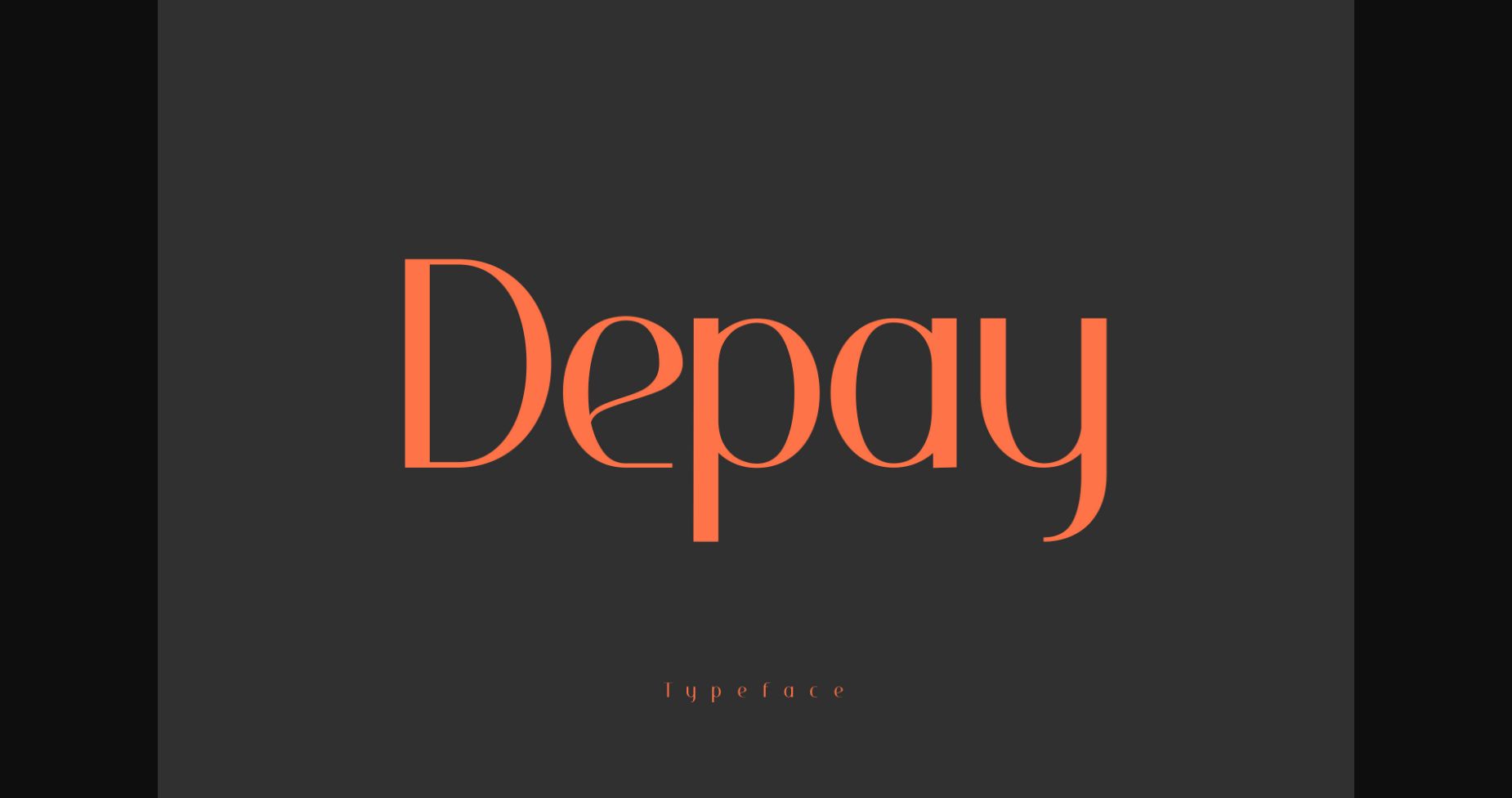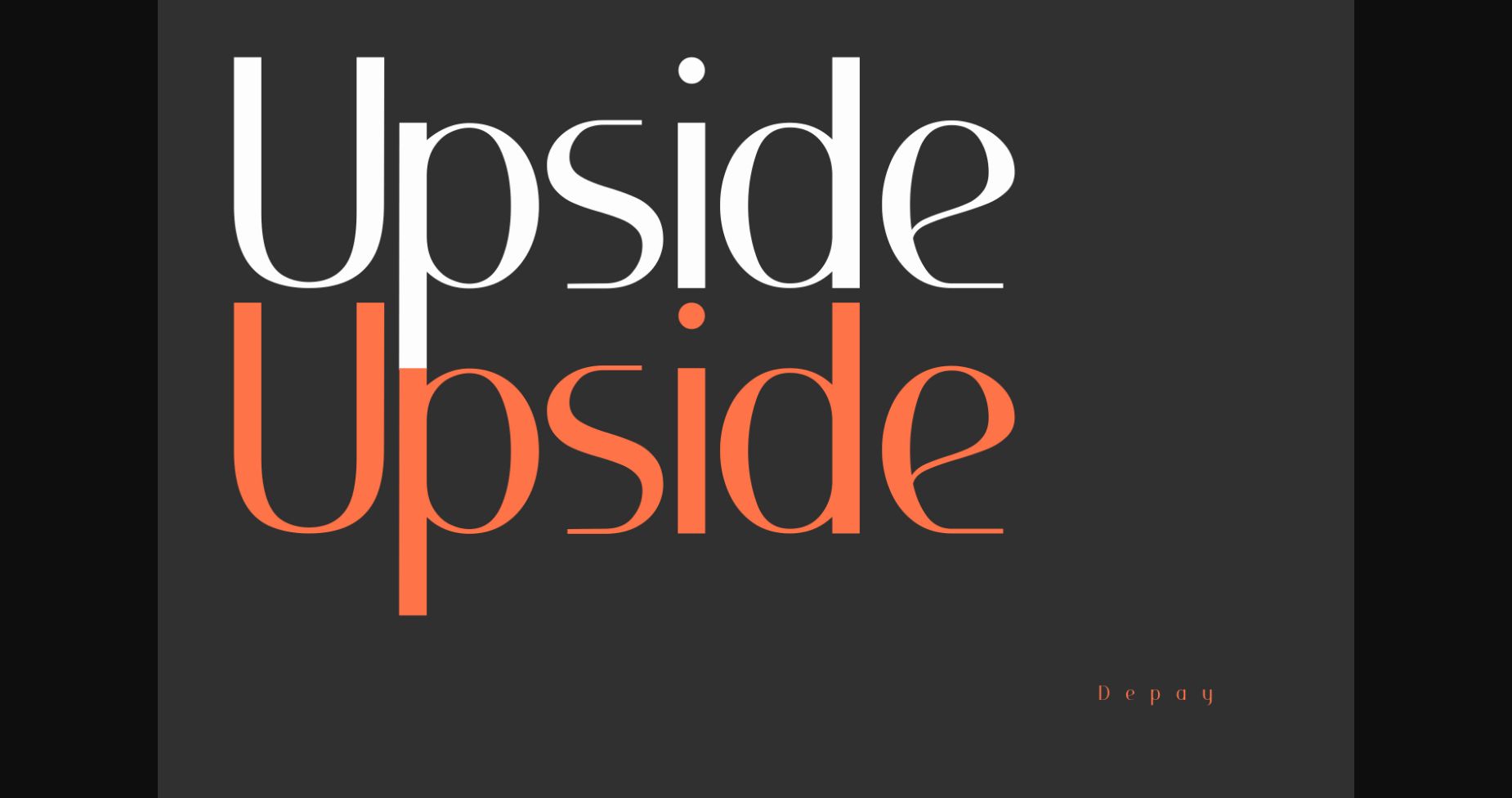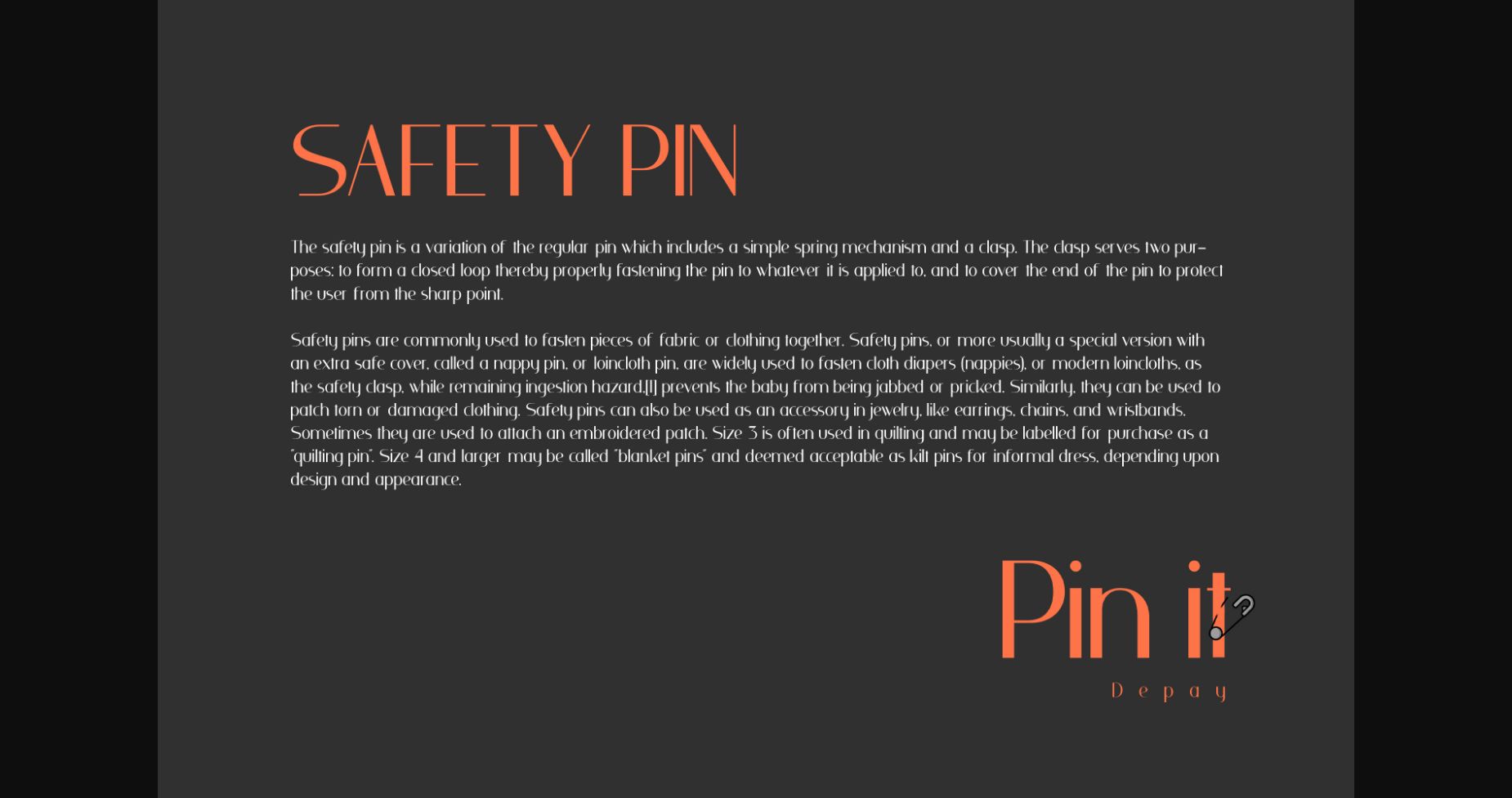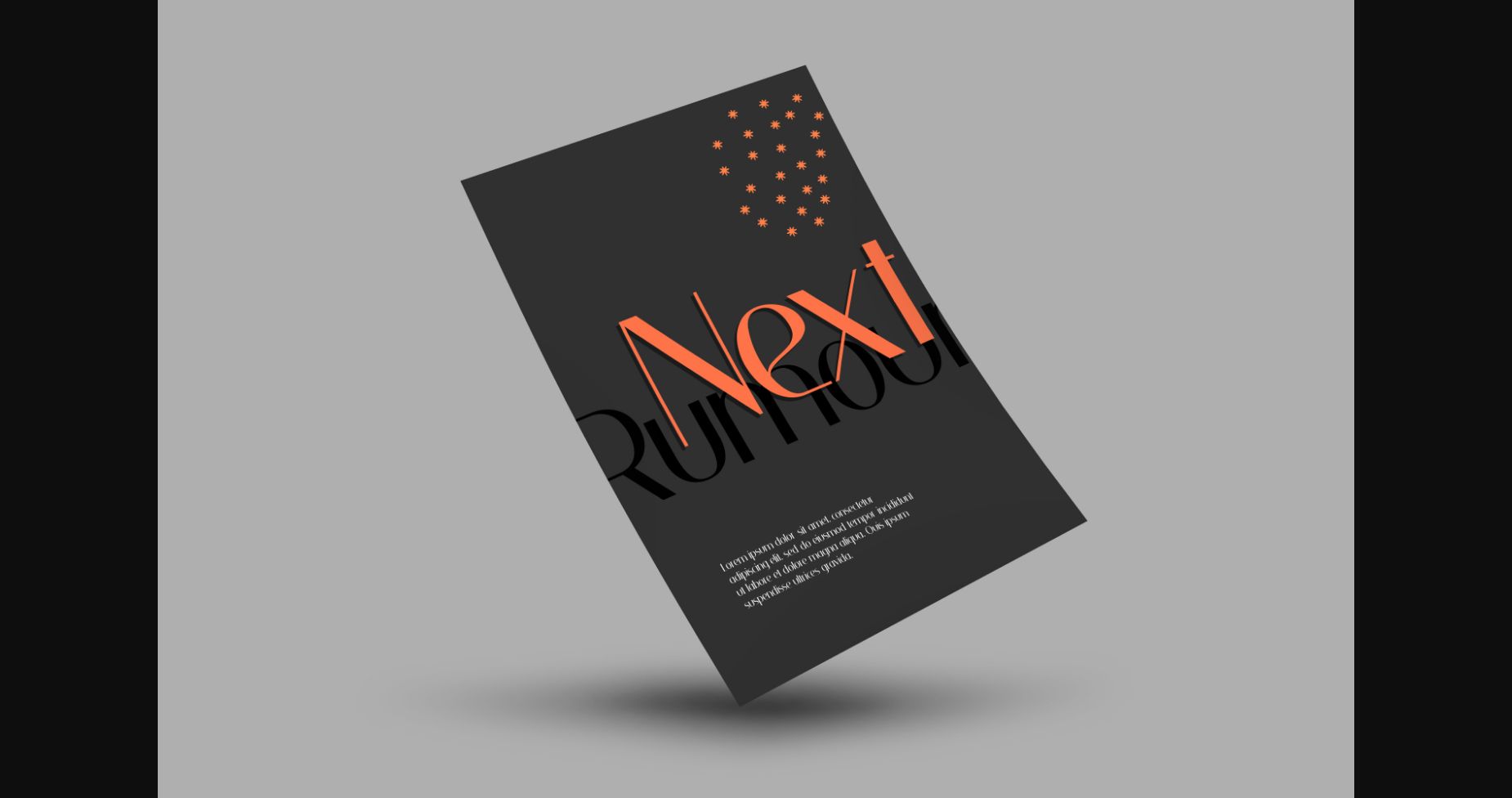
About Depay Font
Depay is an elegant and modern sans serif font. It will elevate a wide range of crafting ideas, from cards, to branding, labels and much more.